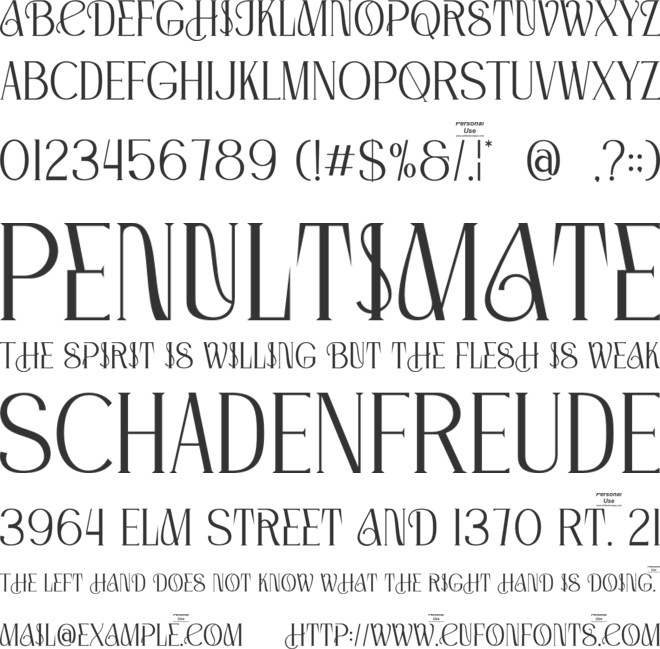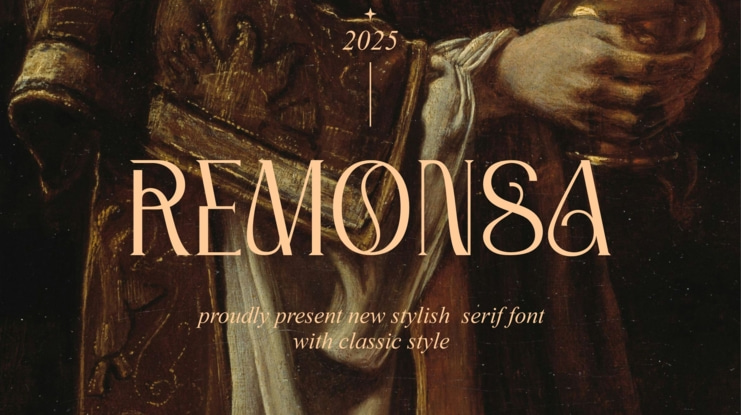
Remonsa Font
Introducing Remonsa is classic serif font. It is perfect to be combined with invitation card designs, company logos, movie titles, movie names, business cards, book titles, brand names and various other designs.